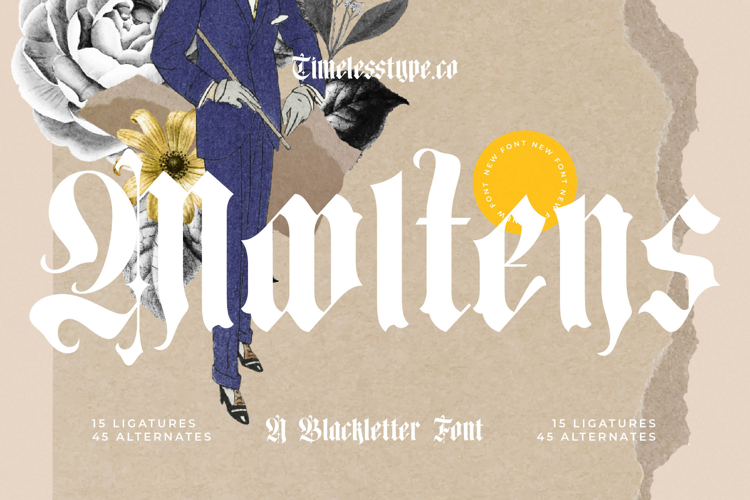
Mooltens - Blackletter Font
Discover the timeless allure of Mooltens - Blackletter Font, a typeface that masterfully blends classic gothic elegance with a contemporary edge. This striking font immediately commands attention with its high-contrast letterforms, meticulously crafted with sharp serifs and ornate calligraphic details. Ideal for projects demanding a touch of sophistication and historical gravitas, Mooltens - Blackletter Font delivers an unparalleled visual impact that transcends fleeting trends.
Unleash unparalleled creative freedom with the rich features embedded within Mooltens - Blackletter Font. Boasting 15 intricate ligatures and 45 unique alternates, this font provides extensive options to customize and perfect your typography. Each character is designed to harmonize, offering a seamless flow and authentic design that elevates any composition, transforming ordinary text into a work of art.
Experience boundless reach and versatility across the globe with this exceptional typeface. With its extensive multilingual support, Mooltens - Blackletter Font adapts seamlessly across global markets, making it incredibly versatile for international projects. This crucial feature ensures your message retains its powerful aesthetic and professional integrity, no matter the language or region.